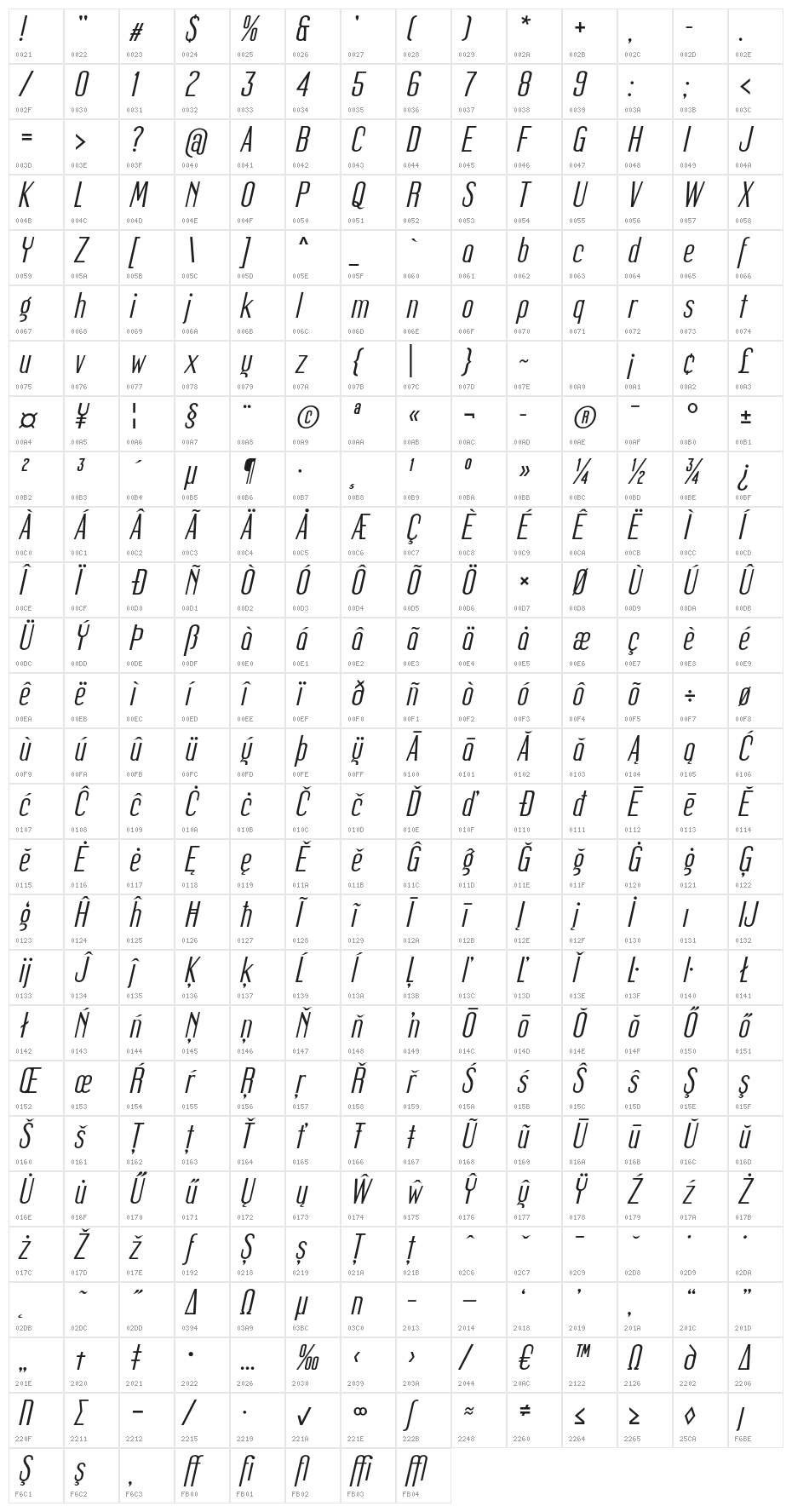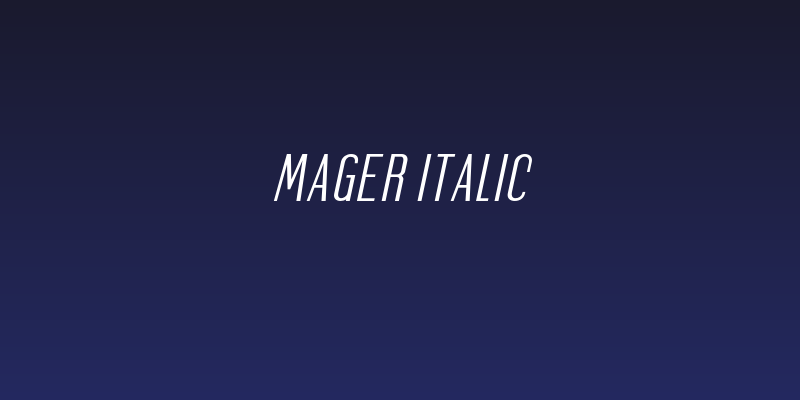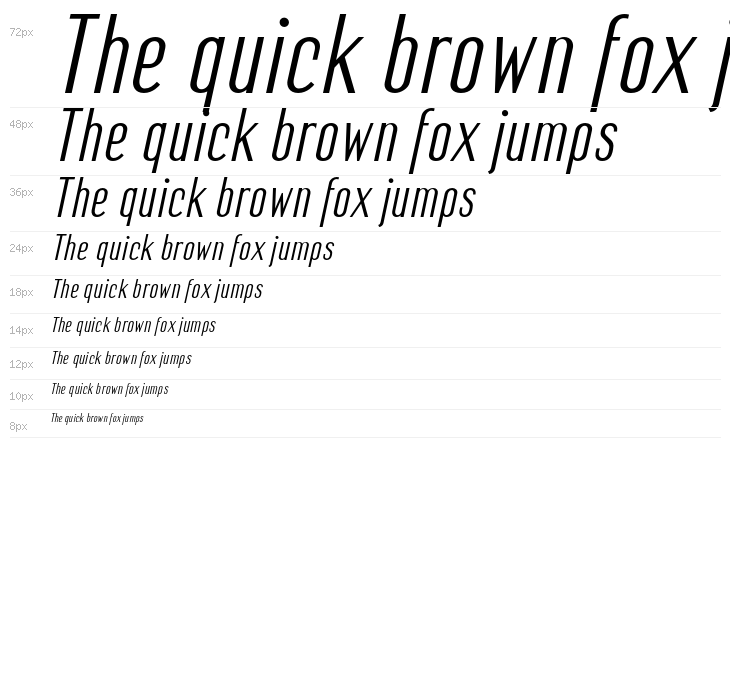
Mager Italic Font
Mager Italic Description
This font features a sleek, italicized design with elongated letterforms that convey a sense of movement and elegance. The characters are slightly condensed, giving it a modern and sophisticated appearance. The strokes are consistent in width, providing a uniform look across all characters. The numerals and special characters maintain the same stylistic approach, ensuring cohesion throughout. This font is well-suited for projects that require a touch of modernity and style, such as branding, advertising, and editorial design.
| Proposed Projects | Ideal for branding, advertising, editorial design, and modern web design. |